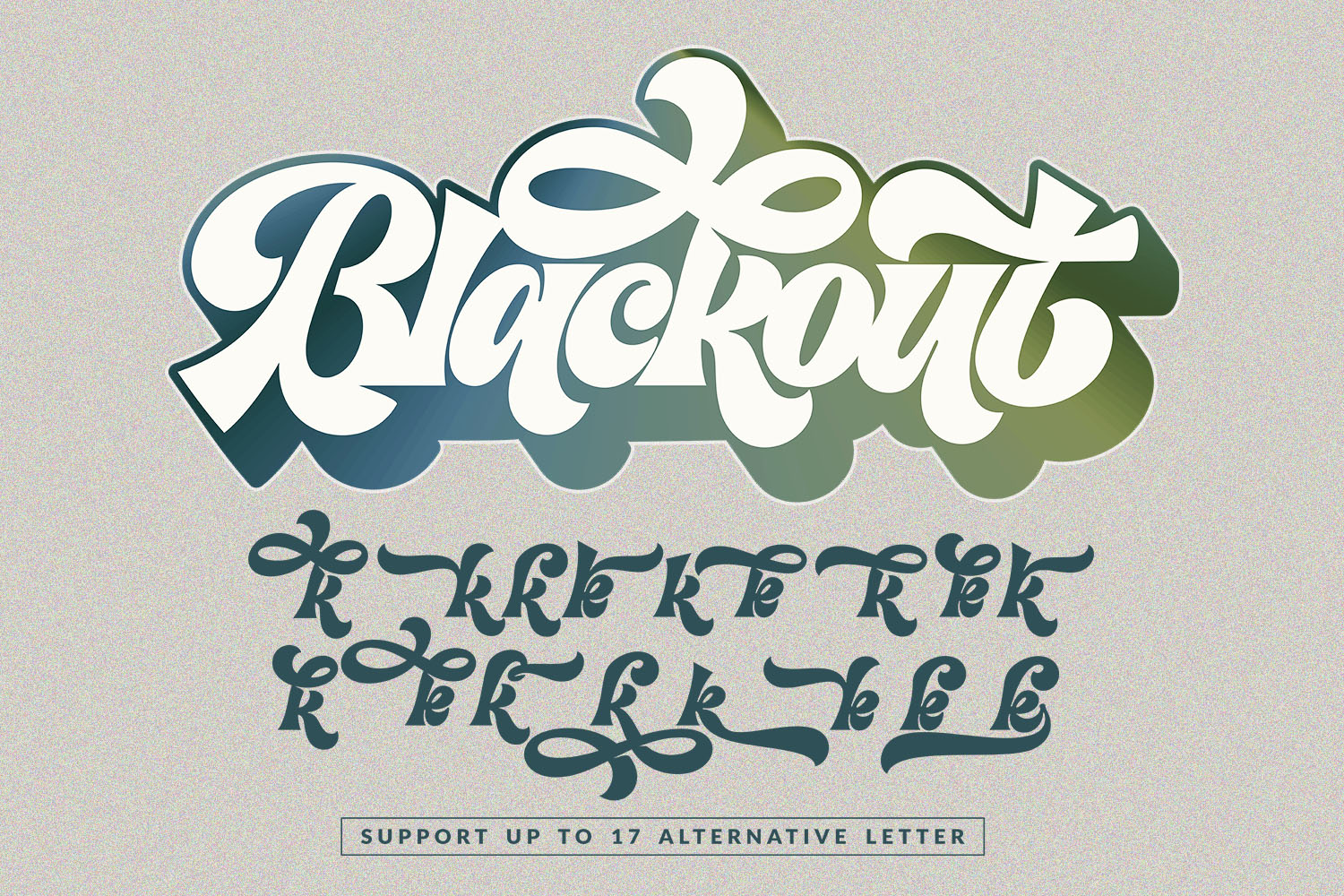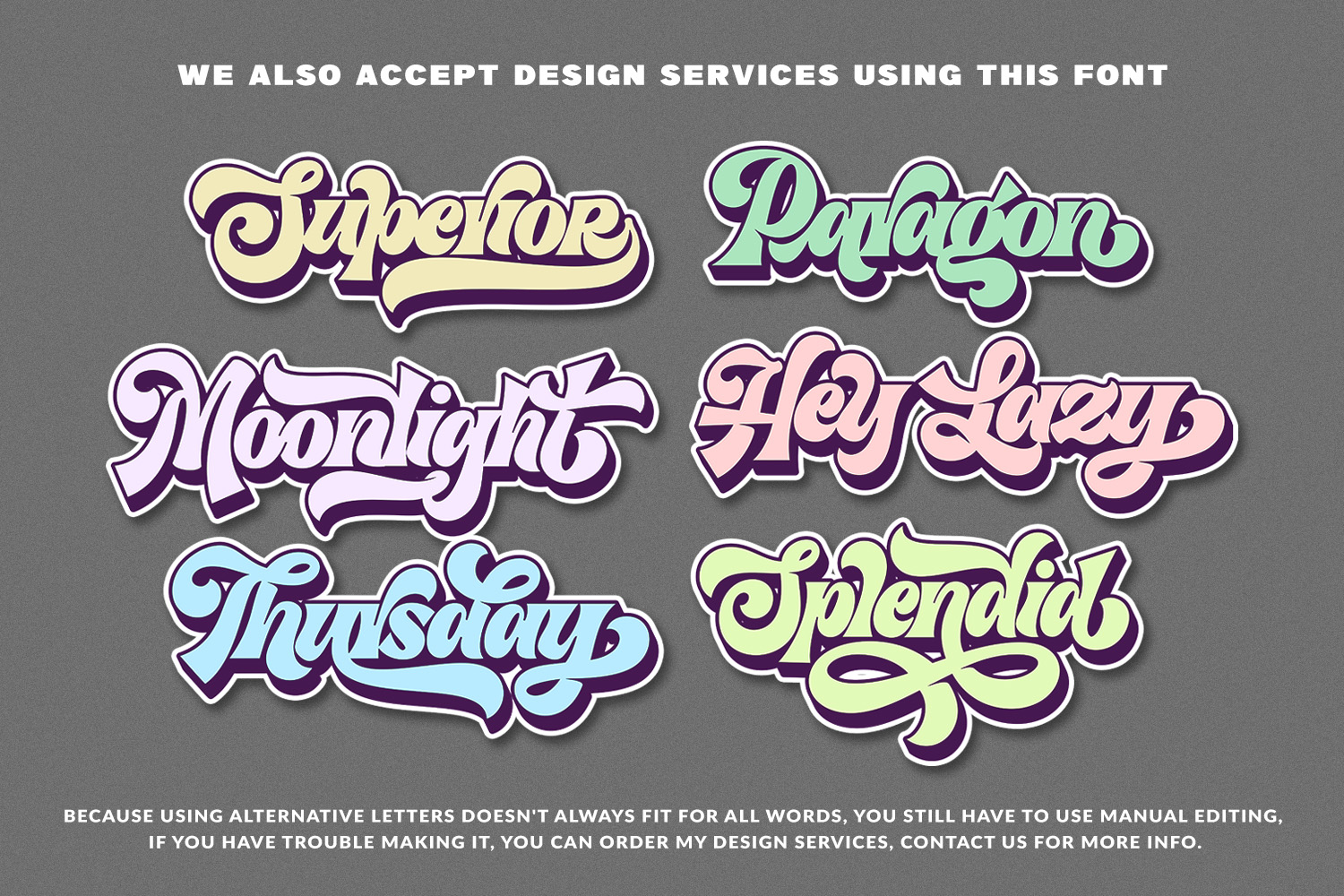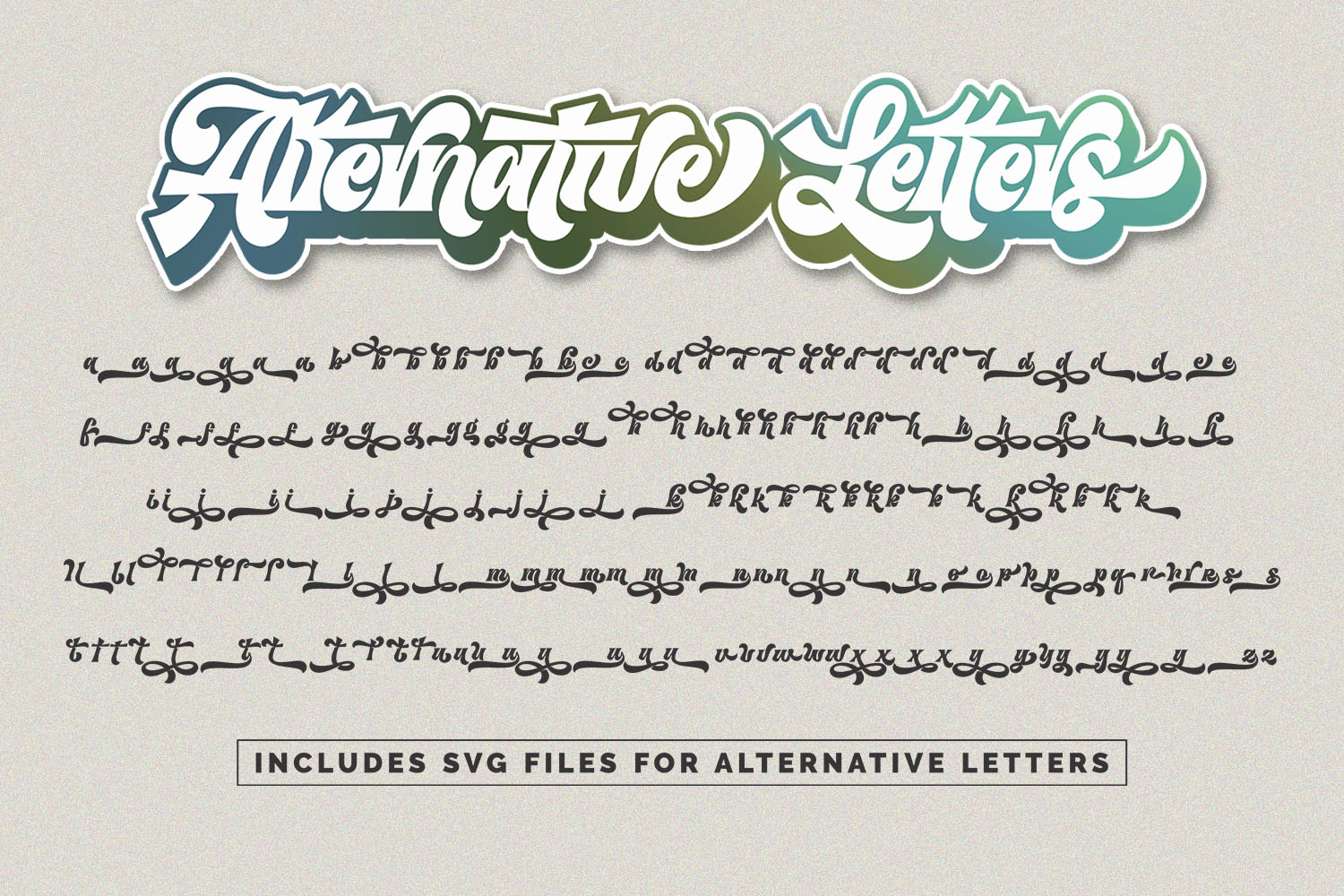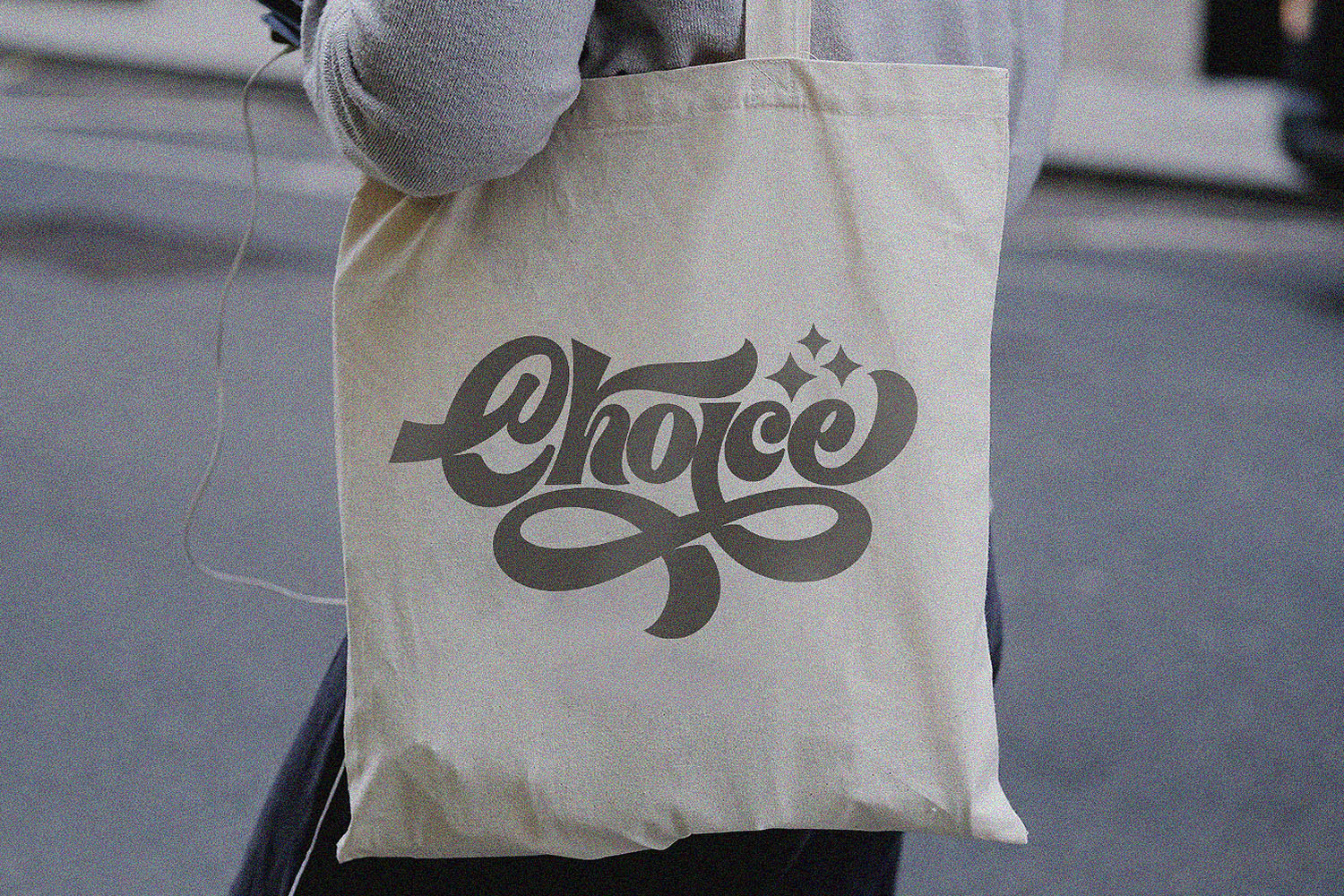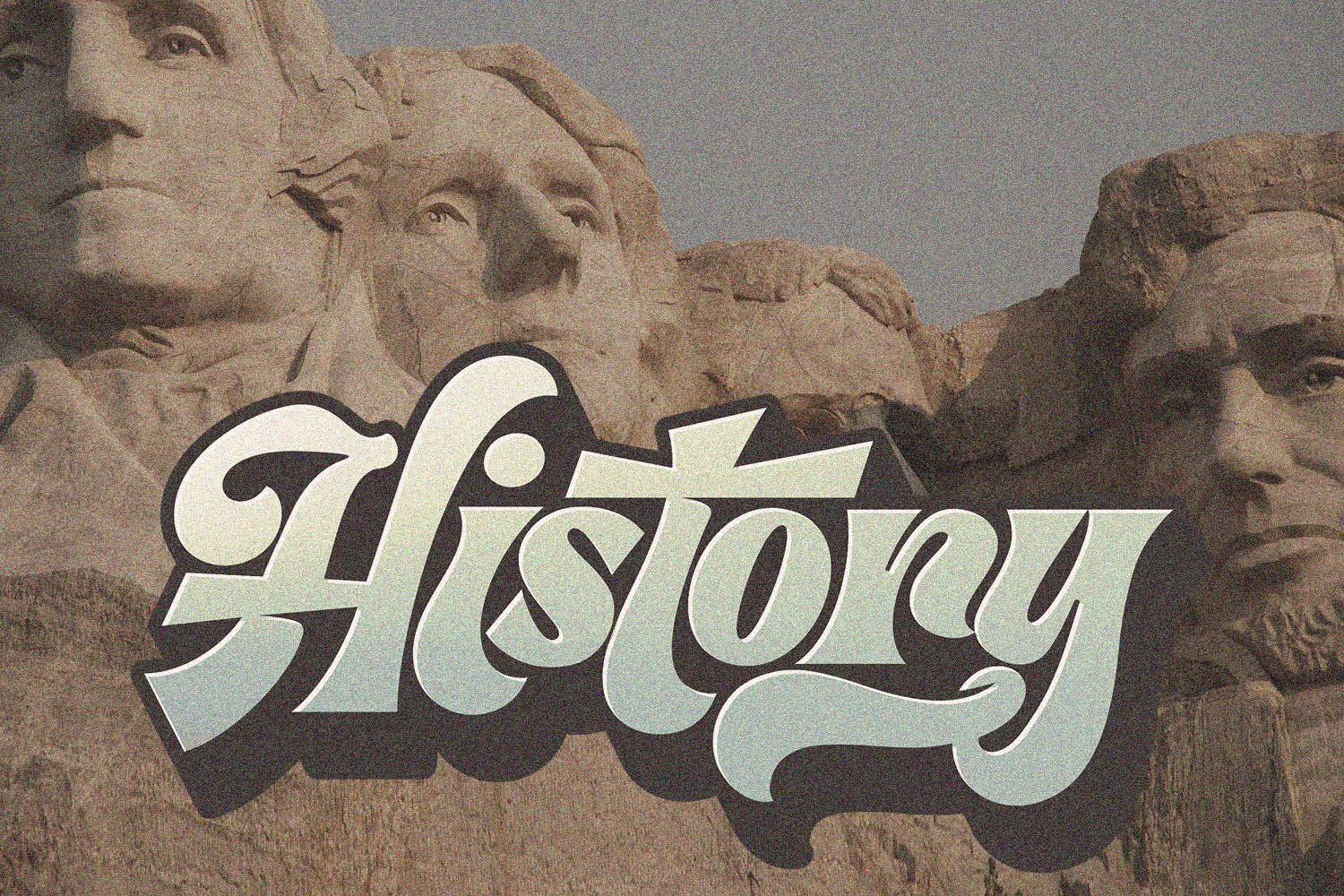
Gallantic is a Vintage retro font. Inspired from retro typography and lettering in the 70’s and 80’s combine with bold typography style.
This font perfect for vintage and retro design, badge, logos,t-shirt, poster, branding, packaging, signage,
book coverand so much more!
Multilingual Support
Alternate Letters
ligatures